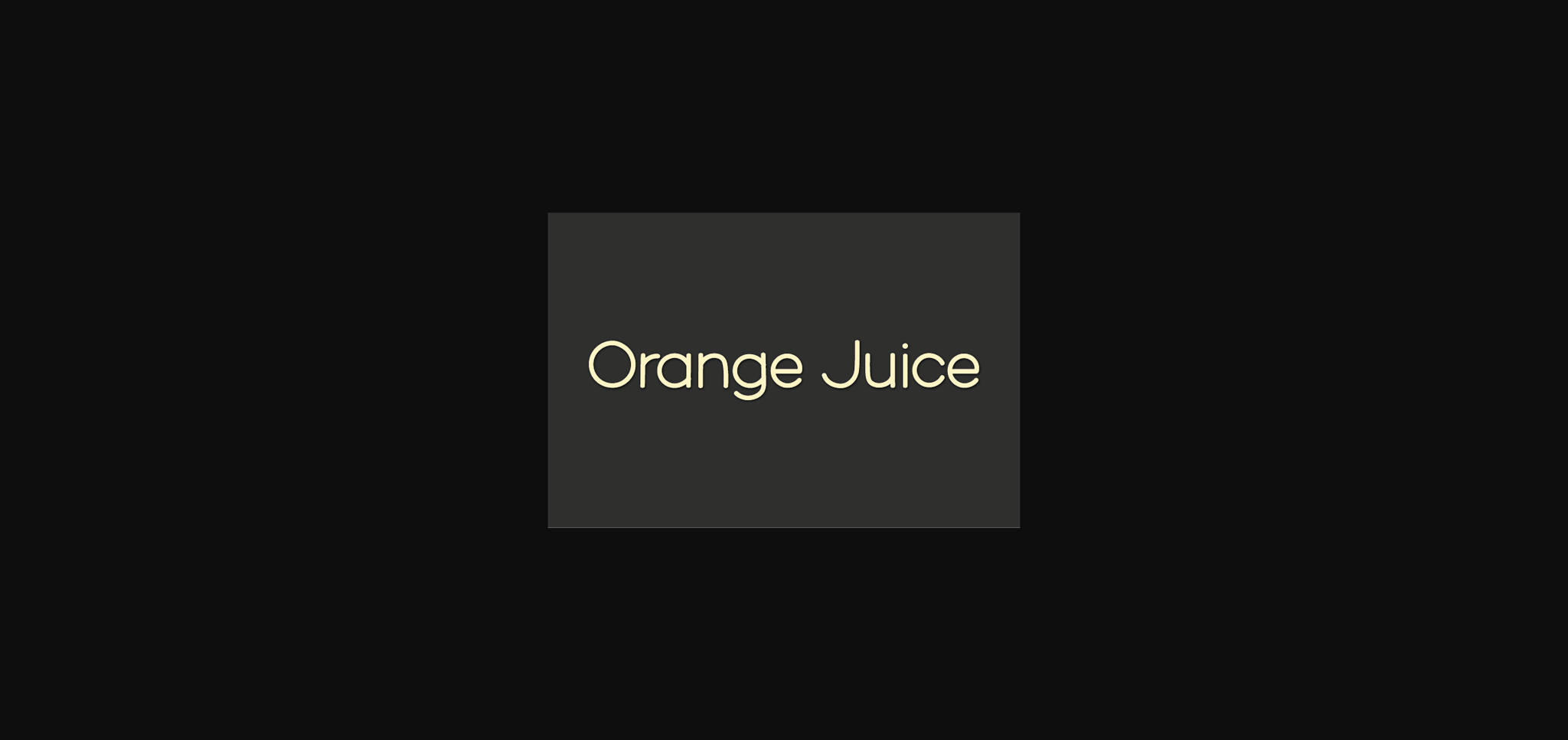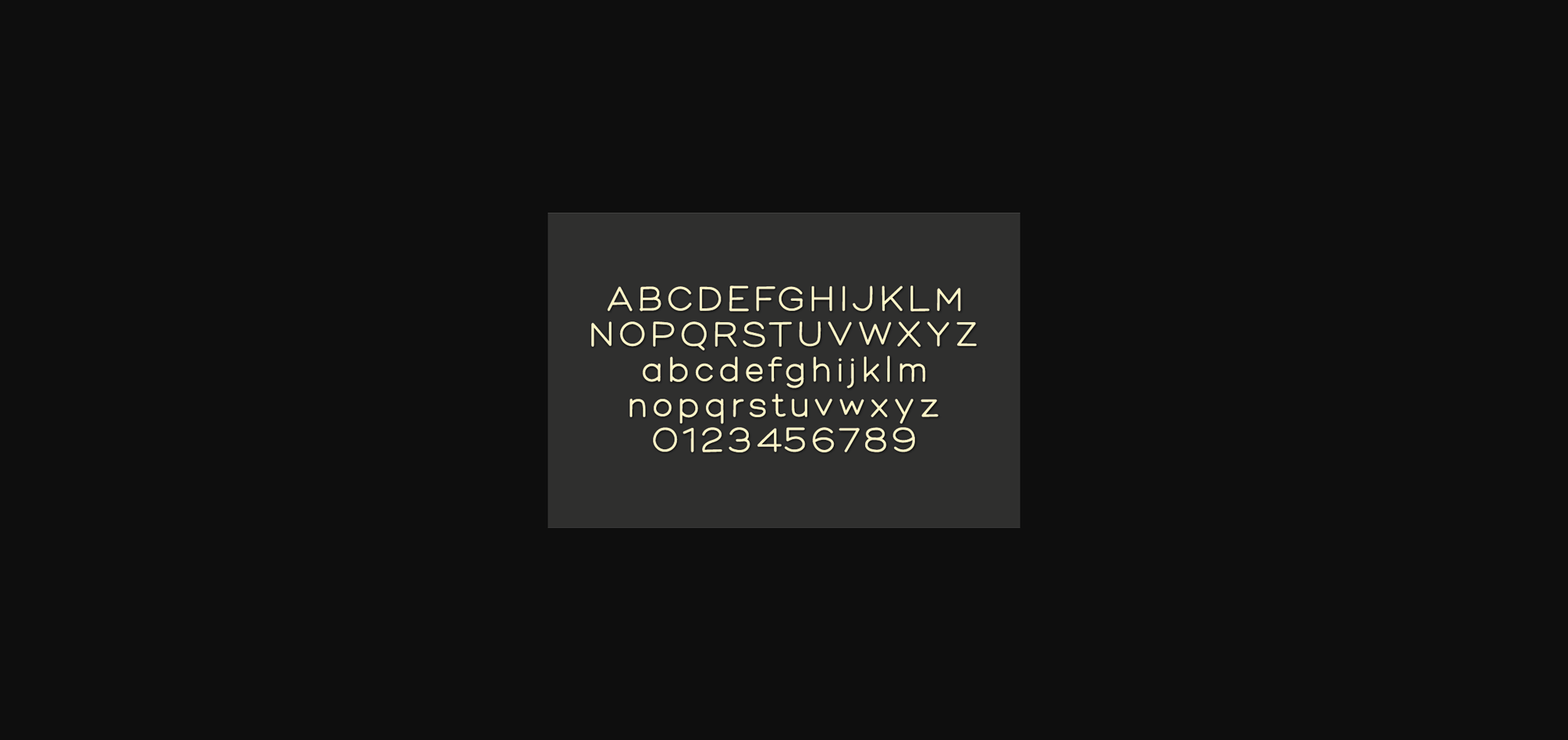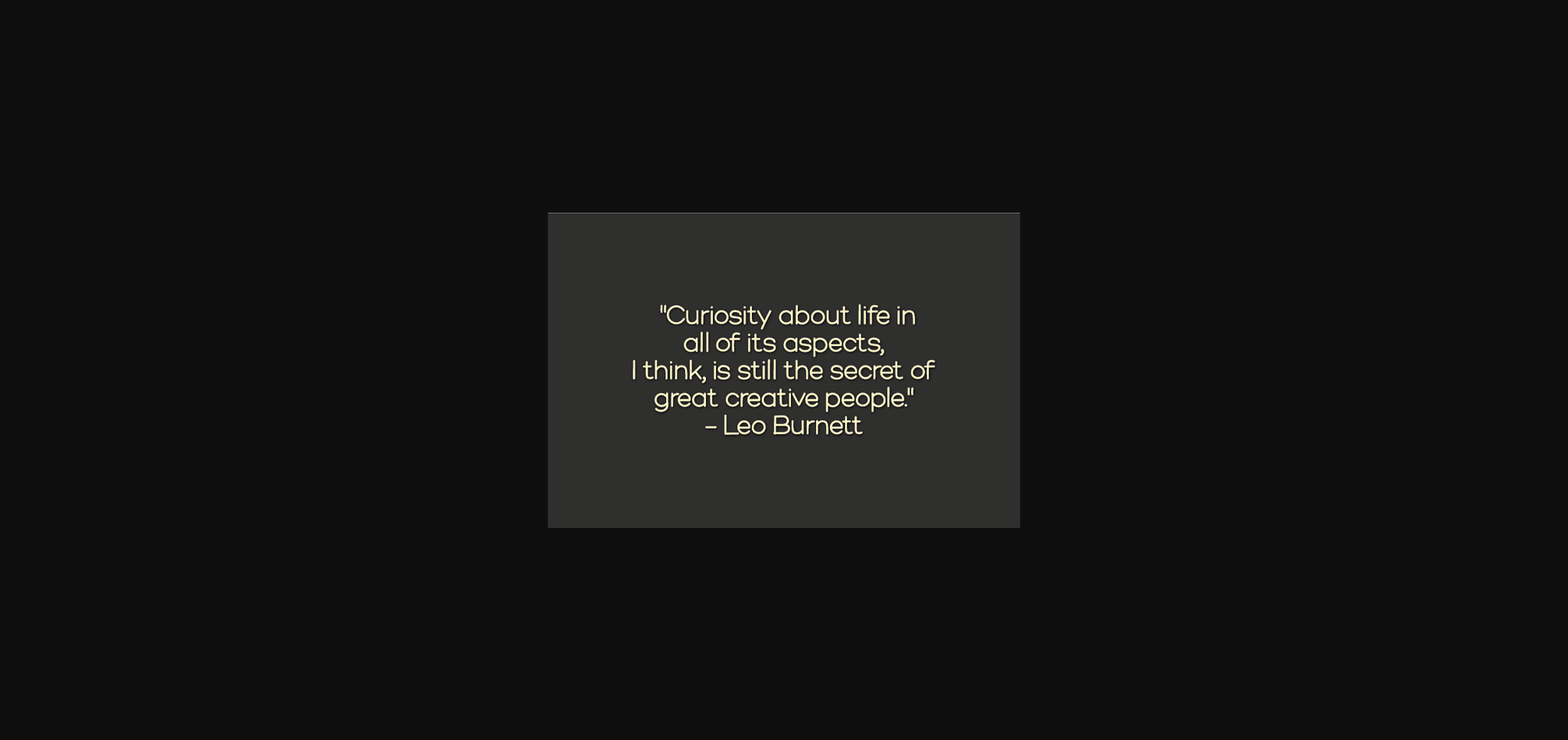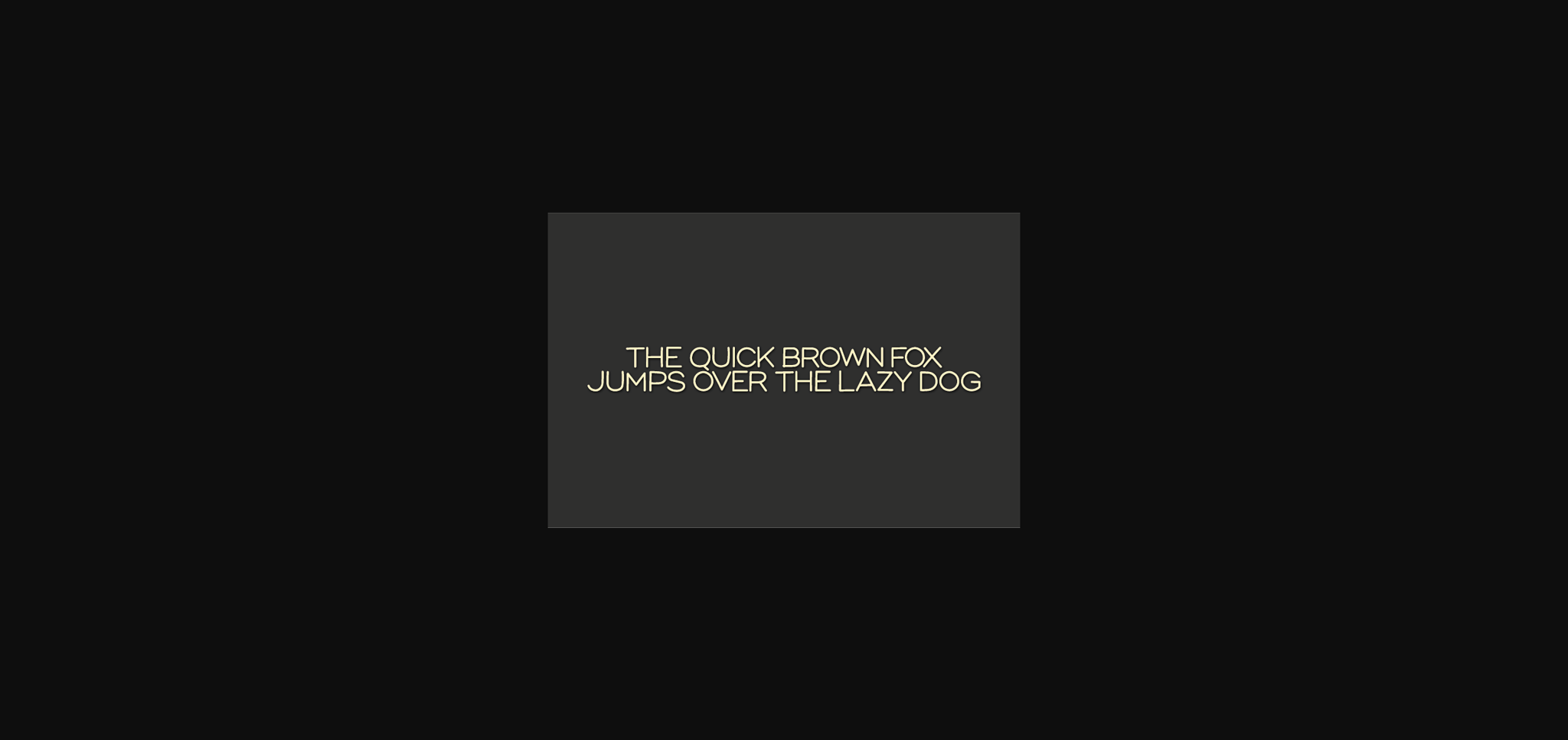
HomeSans Serif FontsOrange Juice Font Sans Serif Fonts Orange Juice Font FacebookXPinterestWhatsApp 1 of 6 ... Orange Juice Font Poster 2... Orange Juice Font Poster 3... Orange Juice Font Poster 4... Orange Juice Font Poster 5... Orange Juice Font Poster 6... About Orange Juice Font Orange Juice is a casual and neat sans serif font that impresses through its natural and elegant style. This typeface will enhance your craft with little effort, making your product stand out from the competition. DOWNLOAD NOW People also explored Emma Font Vastain Font Bellfort Fall in Love Font Pepita Script Yoga Font Kosmilk Font Cathrina Belisha Font Signature Font 278 0 TagsOrange Juice Font Previous articleVersatile FontNext articleExtreme Font LEAVE A REPLY Cancel reply Comment: Please enter your comment! Name:* Please enter your name here Email:* You have entered an incorrect email address! Please enter your email address here Website: Save my name, email, and website in this browser for the next time I comment. Personal Use Free Klotee Personal Use Free Read more about this font Written by Hand Personal Use Free Read more about this font Lanilla Personal Use Free Read more about this font Merak Personal Use Free Read more about this font BLOG Free vs Paid Fonts: Why Investing in Premium Fonts Is Worth It Free vs Paid Fonts: Why Premium Fonts Are Worth It in 2025 The debate of free vs paid fonts continues in the design world. While... To increase your work productivity, choose the most readable fonts. Exploring Font Trends How to Install and Use Fonts on Windows, macOS, and Web Projects